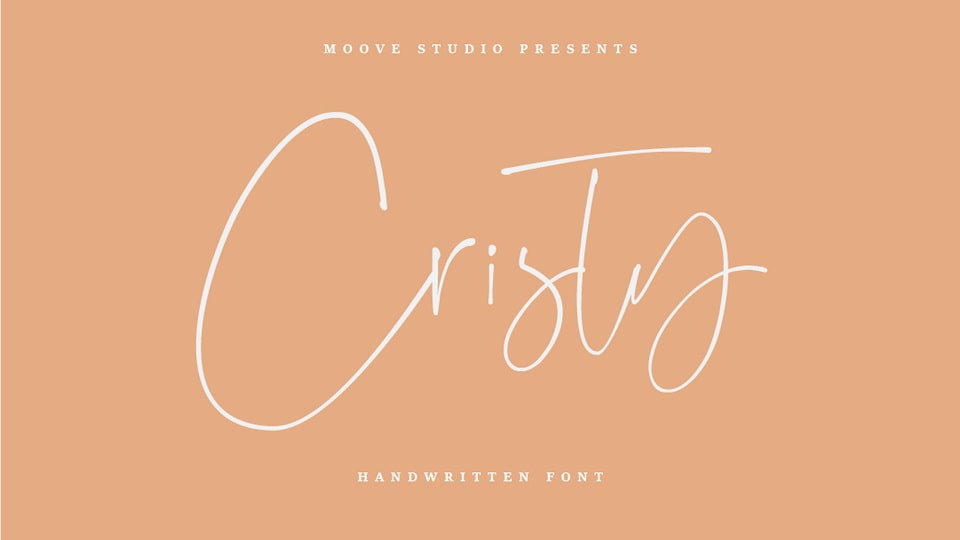
Download Cristy font, a thin and elegant handwritten typeface. Cristy perfectly fits into a variety of design projects, such as logos, business cards, invitations, and more.
Designer: Moove Studio